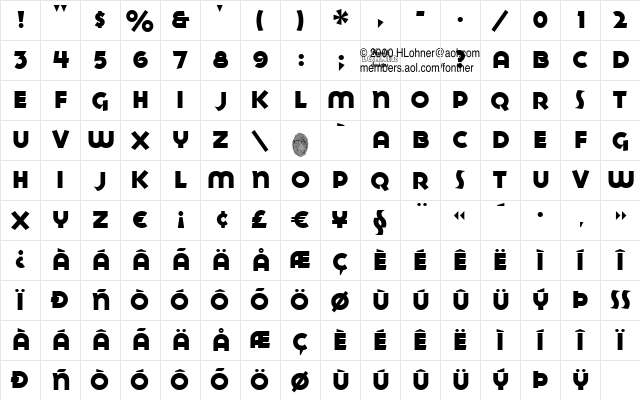
Complete Goya Heavy glyph index. Displaying only characters natively supported by Goya Heavy font.
Goya is a composed and adaptable typeface that performs quietly and consistently across a wide range of design contexts.